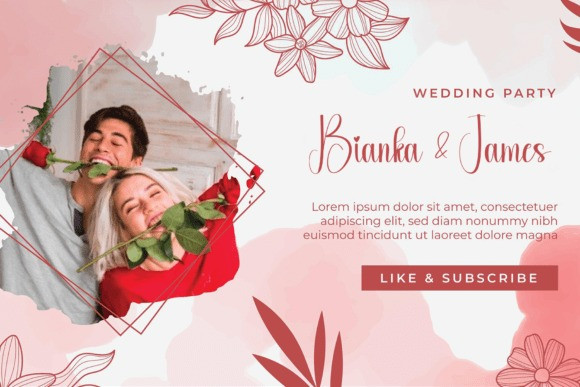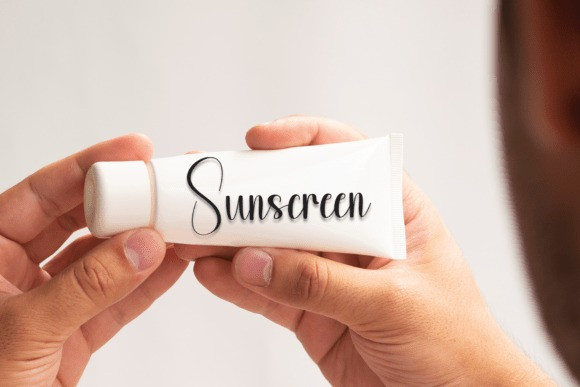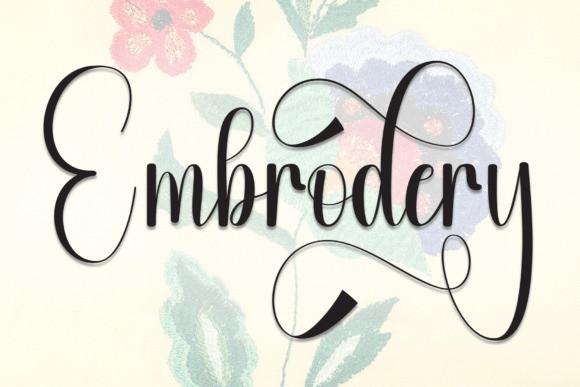
Embrodery Script Font
Embrodery Script Font a delightfully charming and friendly handwritten display font, sweetly designed to infuse character and liveliness into your projects. Exuding warmth and charm, this joyful font is an impeccable choice for handcrafting wedding invitations and cards, crafting memorable moments with its playful allure. Whether you’re seeking to add a playful touch to your designs or promote a light-hearted atmosphere, this font’s endearing quality enhances the overall appeal, making it an irresistible choice for designers aiming for standout creativity.